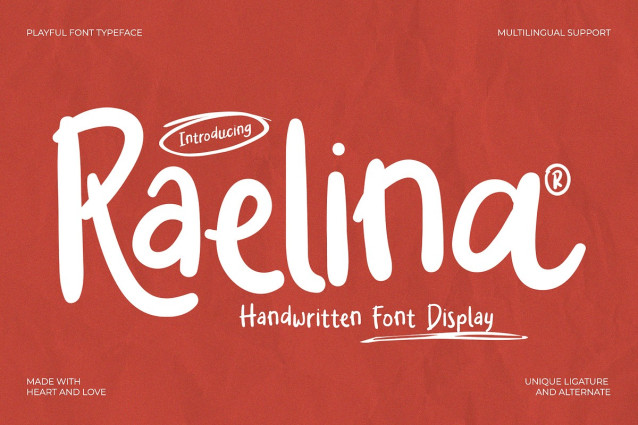
Raelina Font
Raelina Font – Handwritten Font Display. Charming handwritten font display, perfect for adding a personal touch to designs, invitations, and branding. Unique, versatile, and stylish.
Uppercase & Lowercase Characters: Fully designed for a complete typographic experience
Numerals & Punctuation: All the numbers and punctuation marks you need for any design task
Multilingual Support: Includes characters for multiple languages, ensuring global usability
High-Quality Design: Each font is crafted with attention to detail, ensuring a polished and professional look